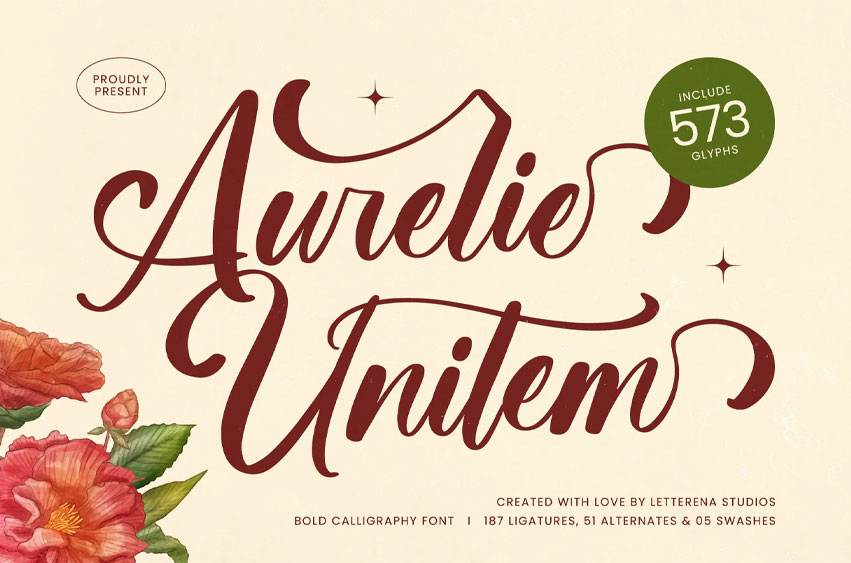
Aurelie Unitem Font is suitable to complement your digital and printed creative products. This font is perfect for posters, social media posts, branding, personal projects, etc.
Aurelie Unitem Font Preview